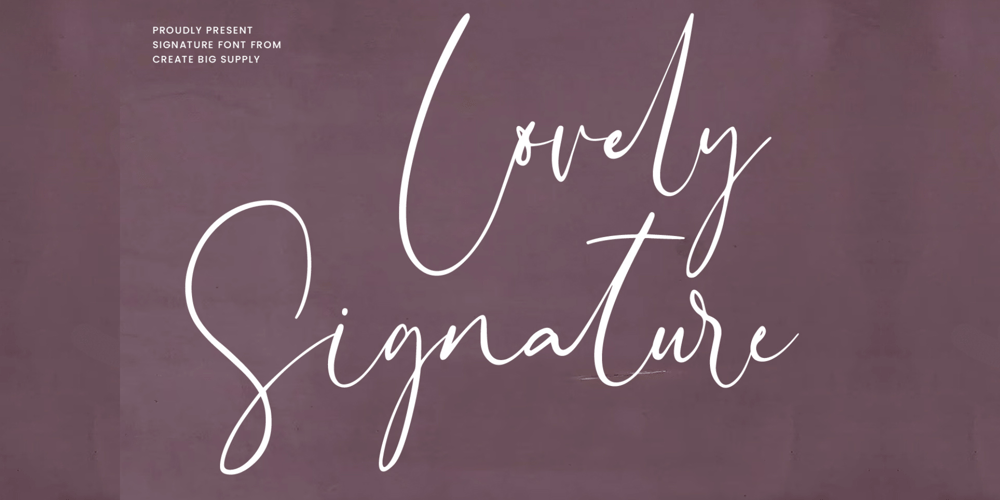
Lovely Signature Font Family was designed by Irpan Maulana and published by Create Big Supply. Lovely Signature contains 1 styles and family package options. Discover Lovely Signature, an exquisite handwritten font that adds a touch of elegance and authenticity to your designs. With its flowing lines and natural feel, Lovely Signature resembles real handwriting, bringing a personal and charming element to your projects. Whether you’re creating wedding invitations, stationary art, or eye-catching social media posts, this font is perfect for making a lasting impression.Lovely Signature offers a complete character set, including both uppercase and lowercase letters, numbers, and punctuations. This extensive range ensures versatility and compatibility, allowing you to express your creativity across various design applications. The font’s multilingual support enables you to incorporate different languages seamlessly, reaching a diverse audience worldwide.With its PUA encoding, Lovely Signature grants easy access to a collection of ligatures, allowing you to enhance the visual appeal of your text. These ligatures offer beautiful connections and flourishes, adding a sophisticated and unique touch to your designs. Whether you’re designing logos, branding materials, or personal projects, Lovely Signature provides endless possibilities.Capture the essence of elegance and elevate your designs with Lovely Signature. Perfect for weddings, events, branding, and more, this handwritten font will evoke emotions and create memorable experiences for your audience. Add a personal and enchanting touch to your designs with Lovely Signature, and let your creativity shine.